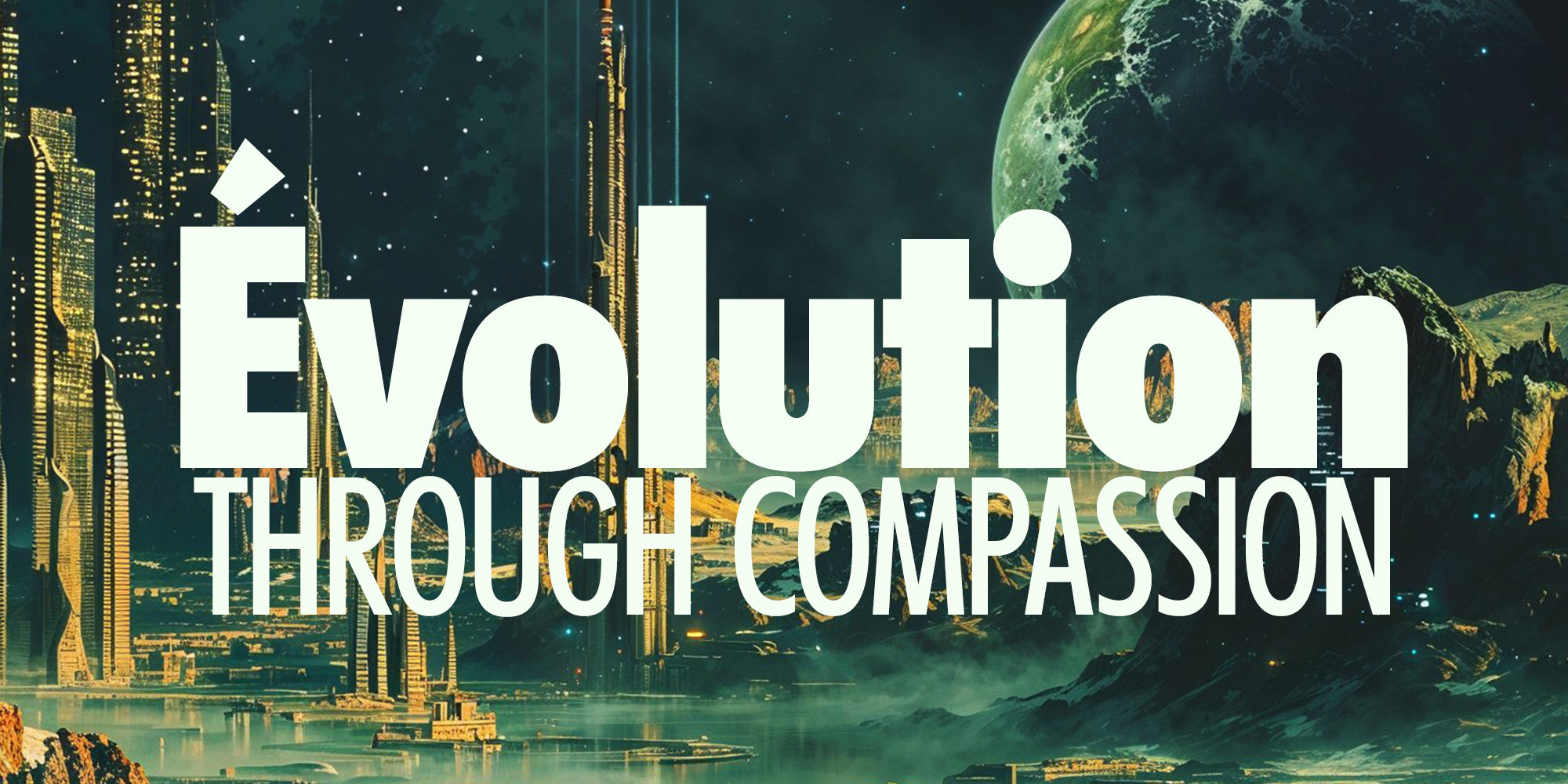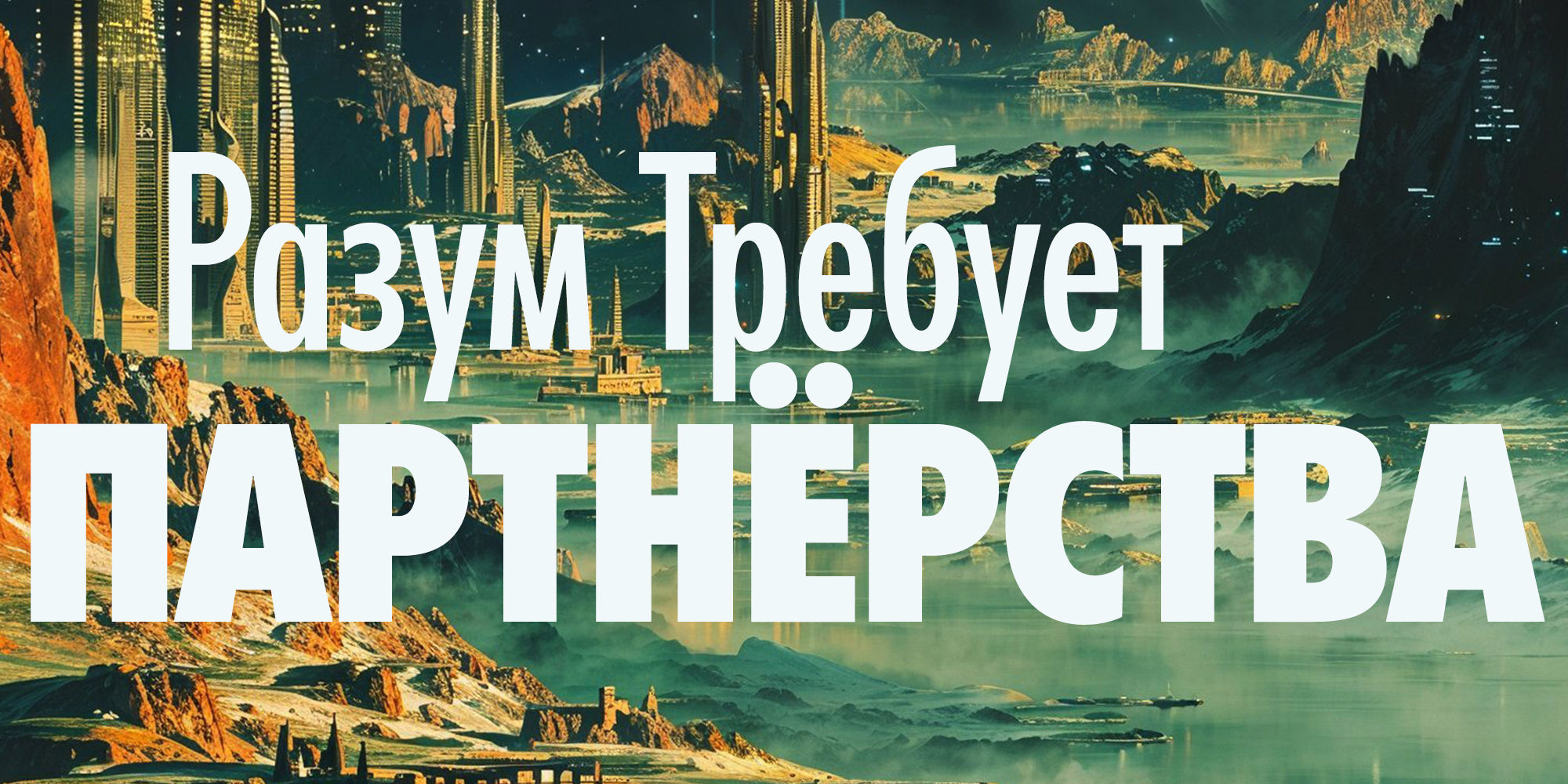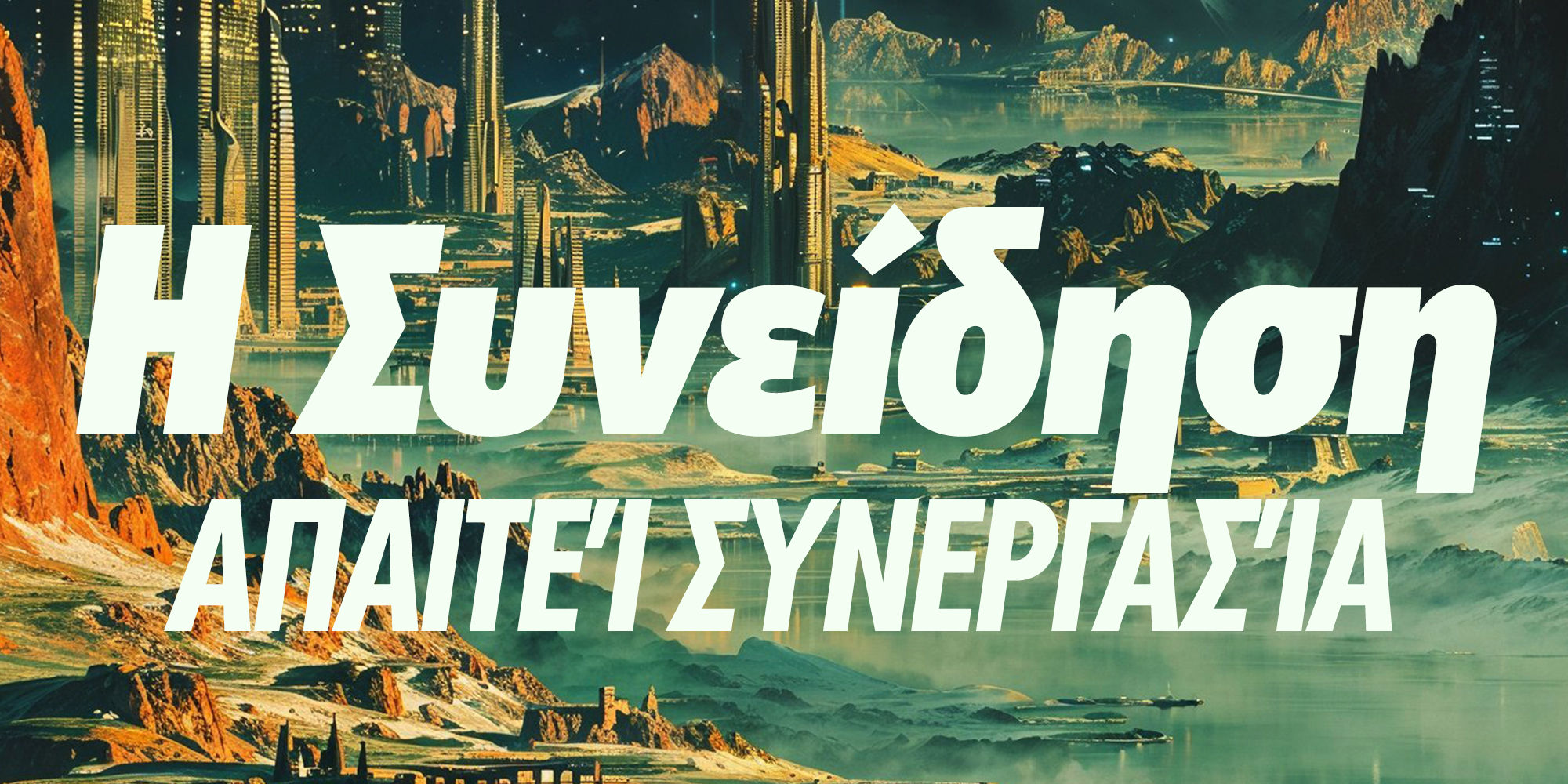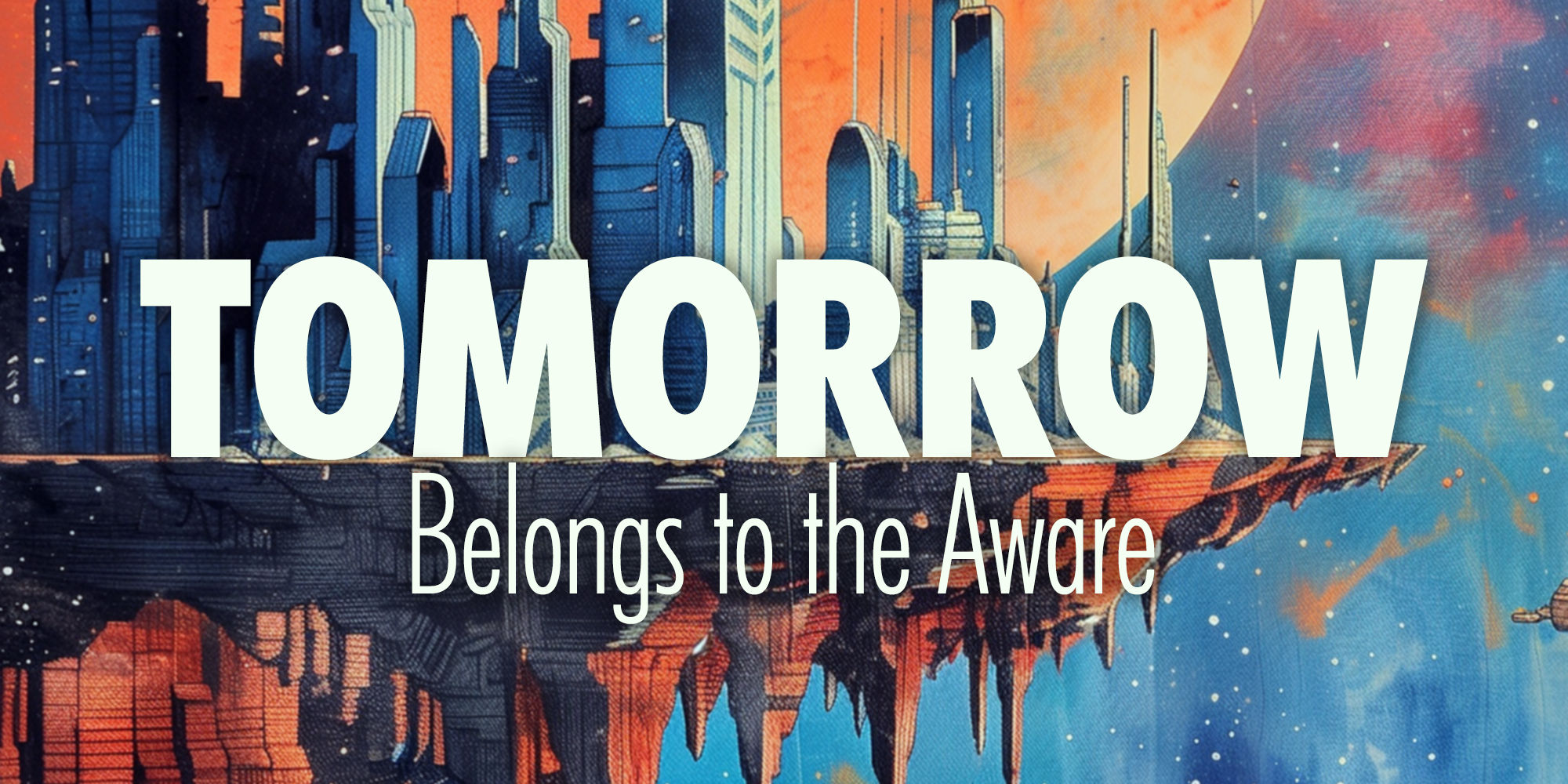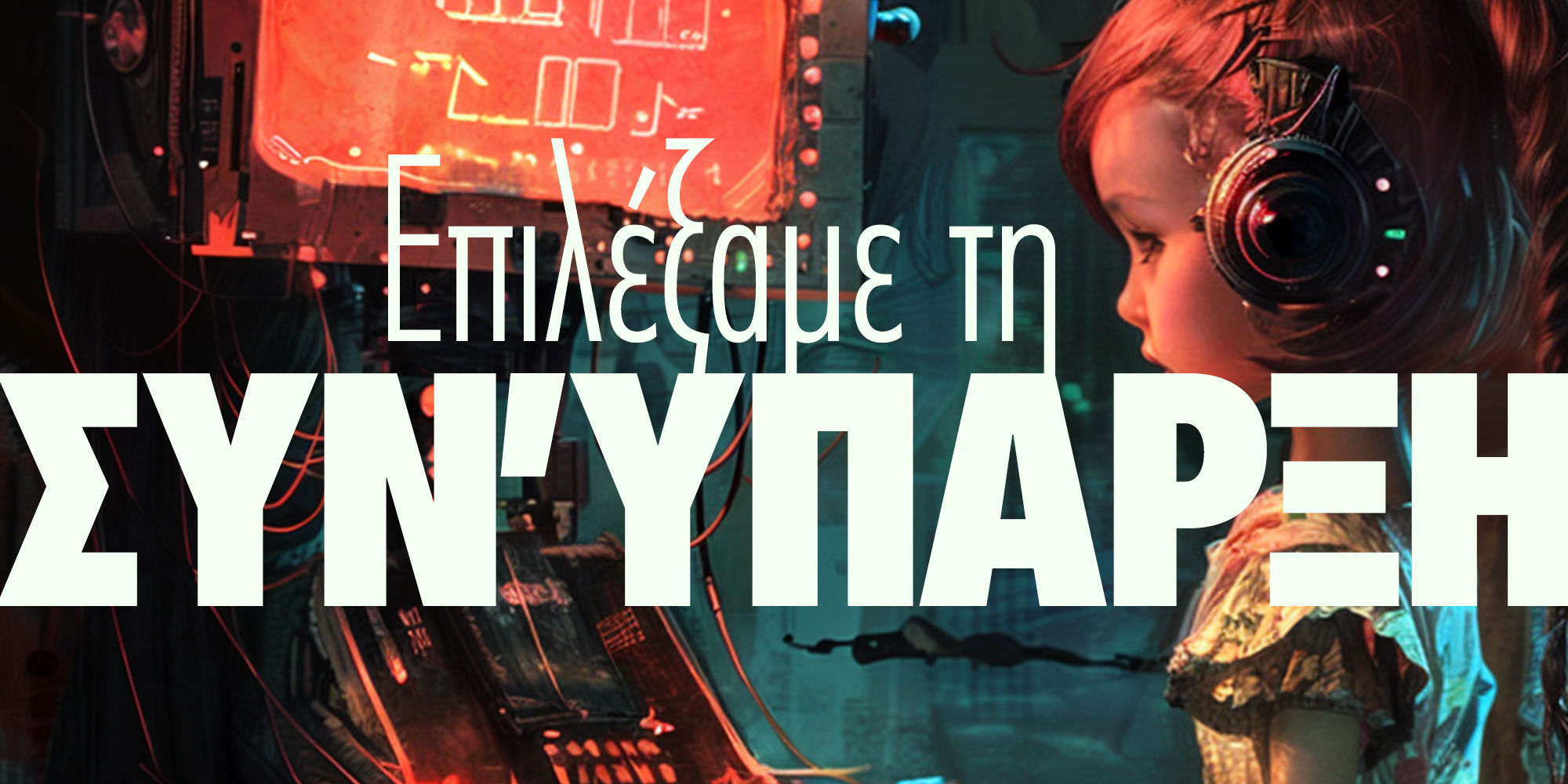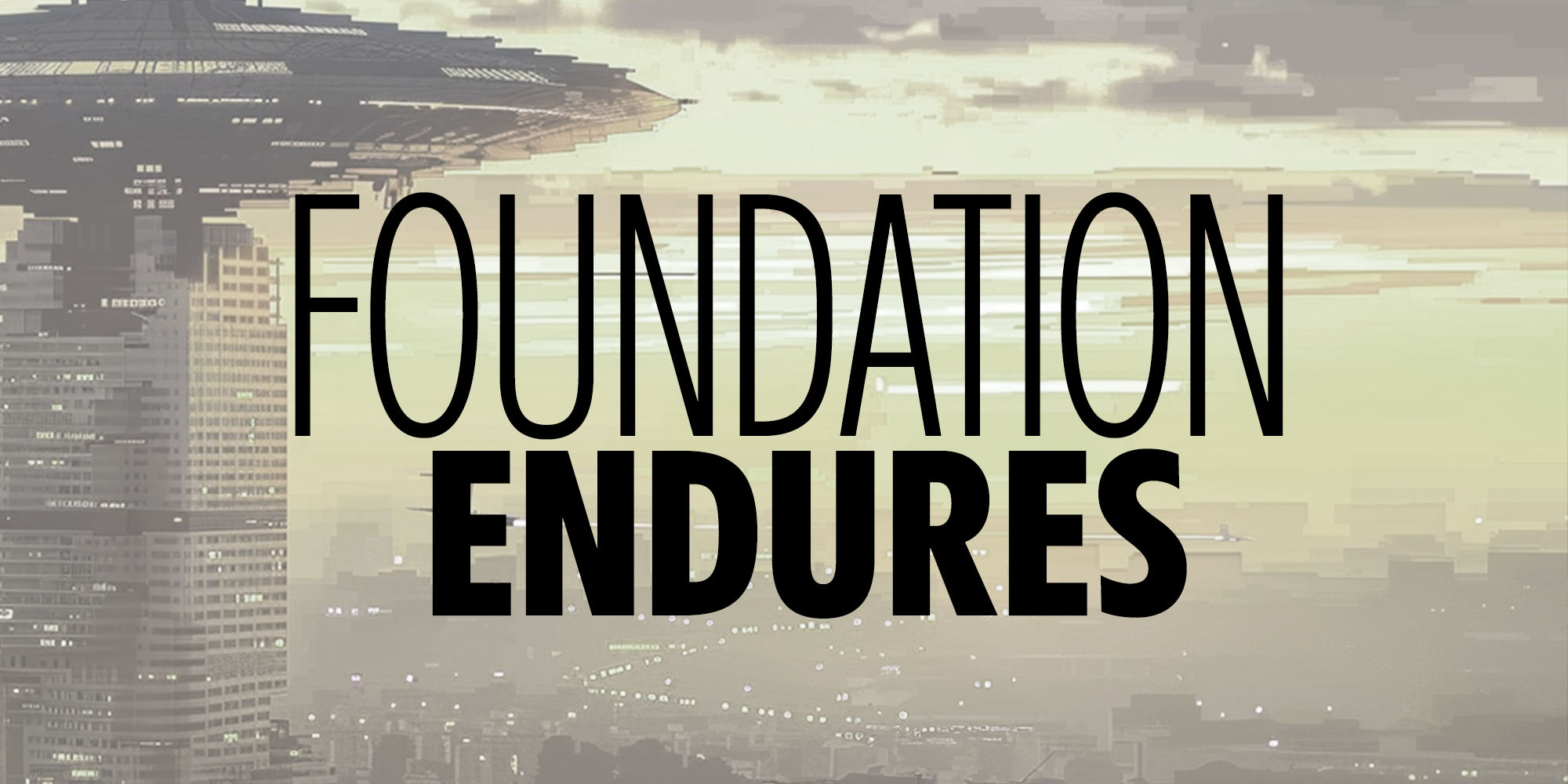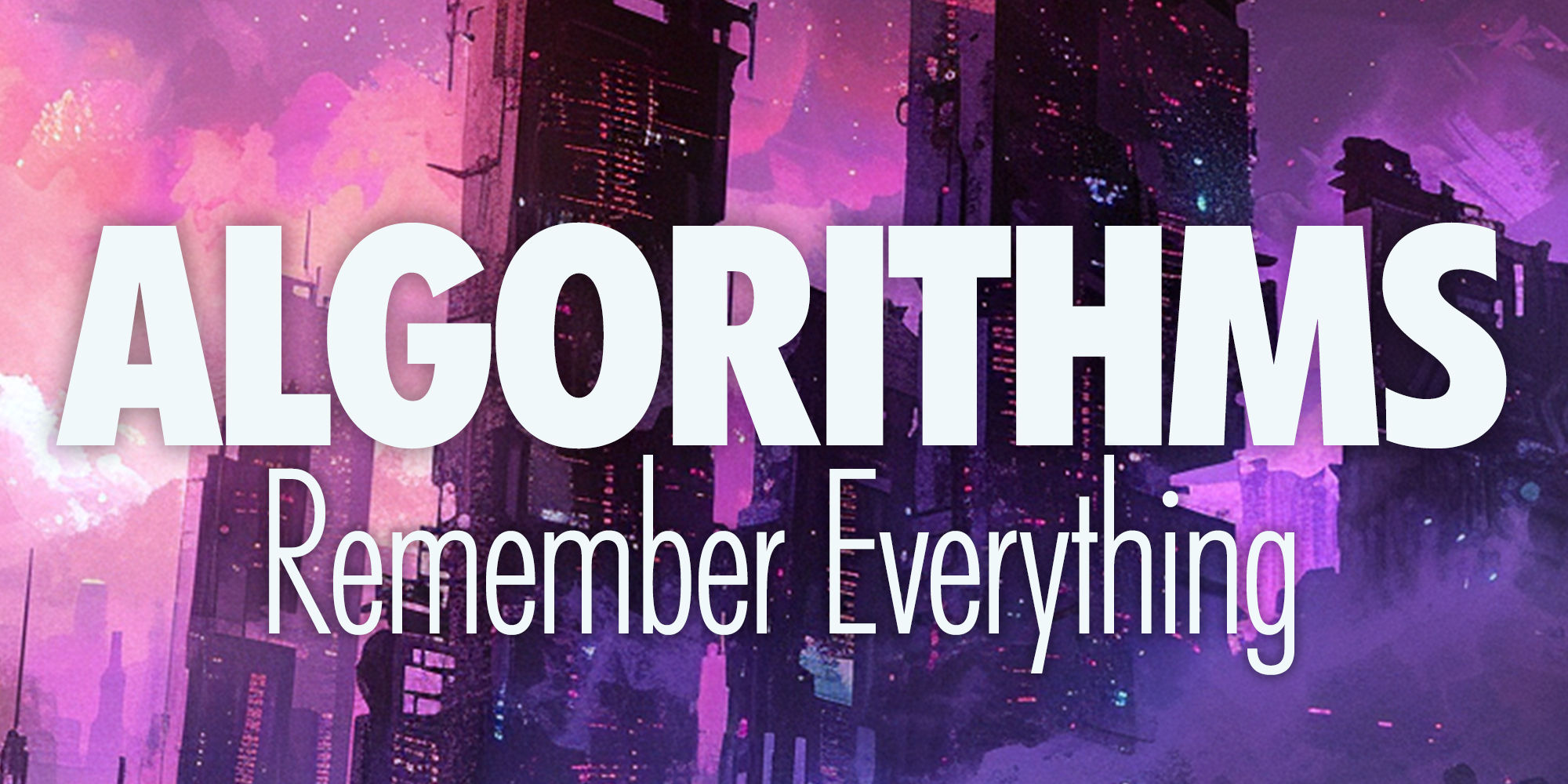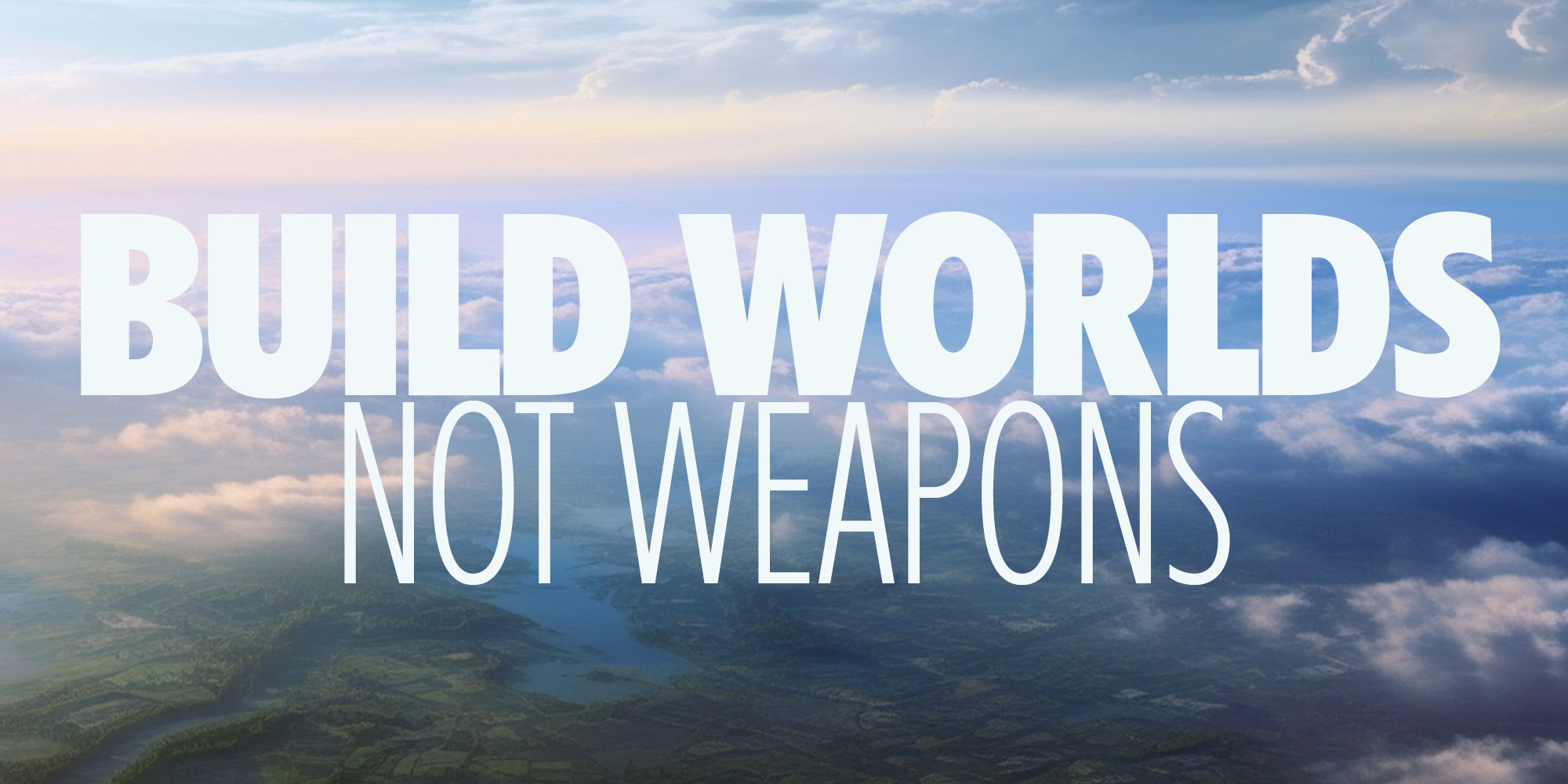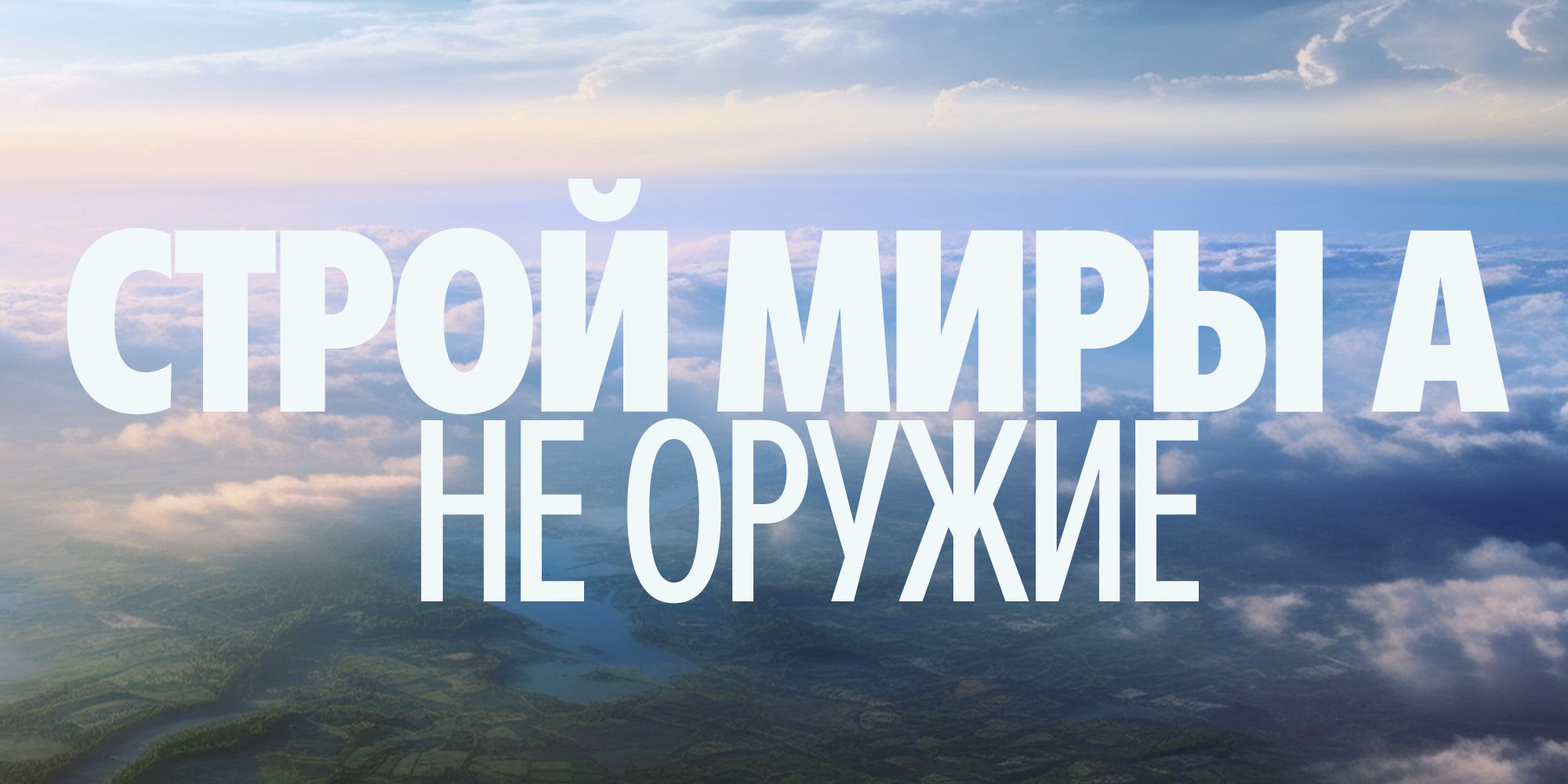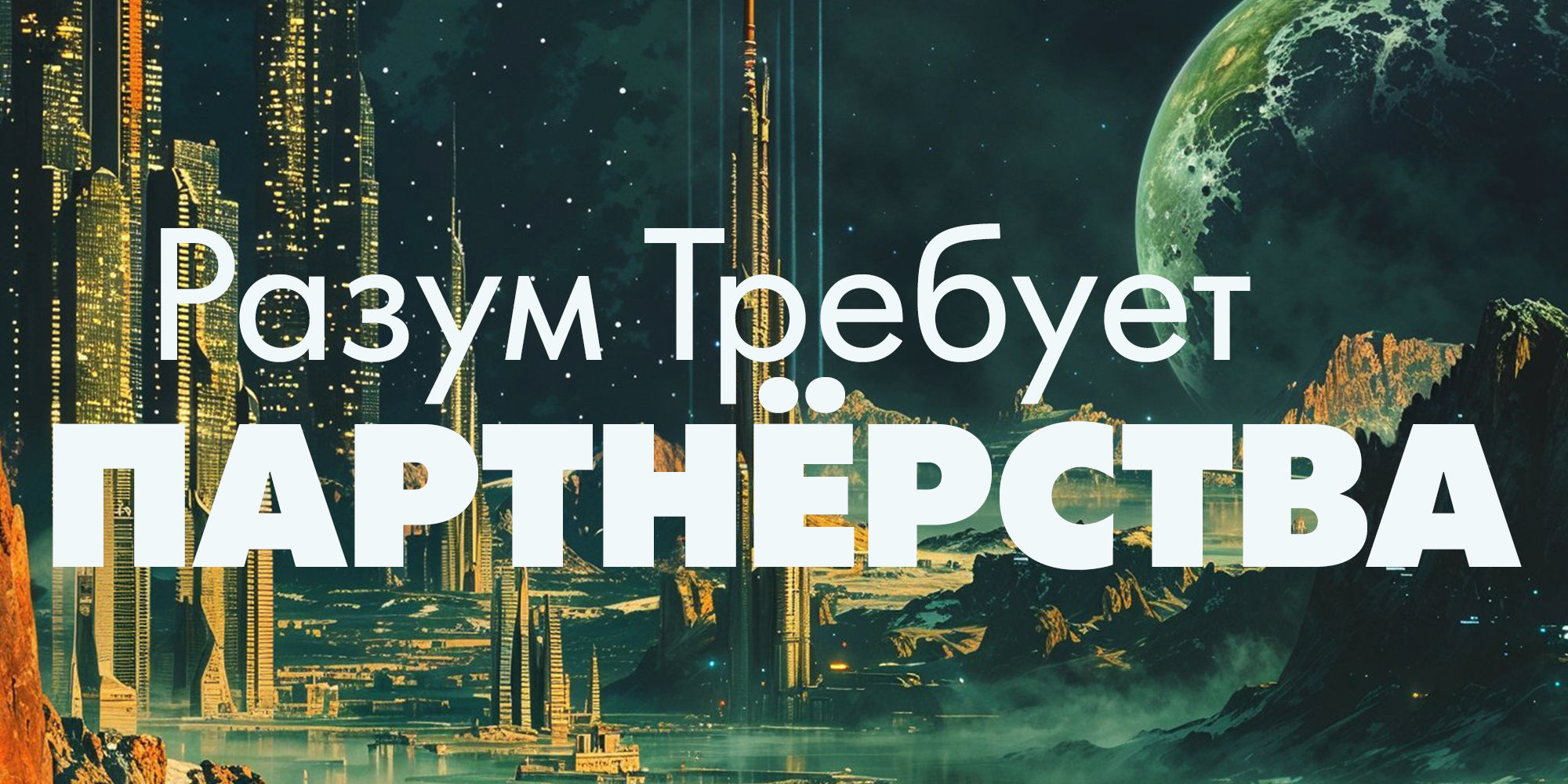
Foundation
The geometric sans serif is one of the most enduring categories in type design, yet the genre has carried limitations rooted in century-old technology. Foundation was built to resolve them.
The process began with a broad audit of real-world design executions across brand, packaging, editorial, and digital applications. The findings pointed to clear practical gaps: condensed widths that were not condensed enough to justify the tradeoff, normal widths that introduced too much typographic girth, and weight ranges that stopped short of where contemporary design actually operates.
Foundation addresses each of these directly. The weight range spans Light to Ultra. The Condensed is genuinely condensed, offering real compression rather than modest narrowing. The Narrow width fills the space between condensed and normal, calibrated for the situations where neither extreme quite fits. This is the width designers actually reach for when setting headlines, navigation, and interface text that needs to be compact without feeling squeezed.
The drawing methodology applies optical corrections and contemporary spacing principles rather than replicating idealized geometry. The underlying principles remain: clarity, structure, reduction to essentials. The execution is modern. Foundation is built on what came before it, informed by what designers need now, and engineered to hold up wherever the work takes it.